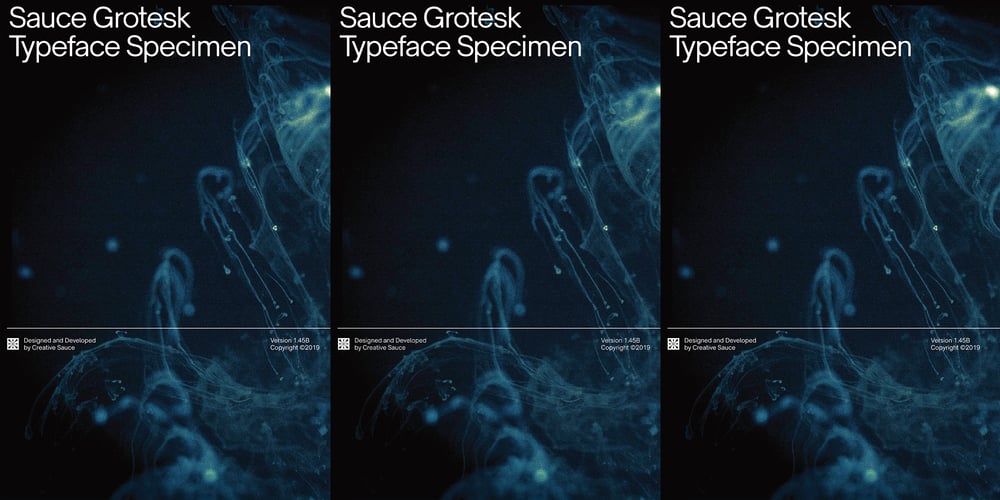
Sauce Grotesk Font Family was designed by Alfredo Marco Pradil, James Burtoft and published by Creative Sauce. Sauce Grotesk contains 7 styles and family package options. Sauce Grotesk is a compact typeface much like the classic unassuming sans serif grotesques but with softer features that shows fluidity and a sense of easiness. We wanted a typeface that can relate to a broader audience for maximum message clarity while maintaining aesthetic qualities.